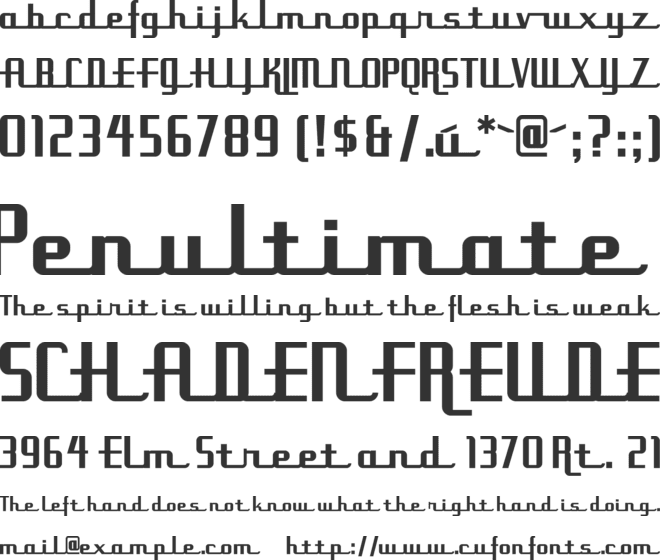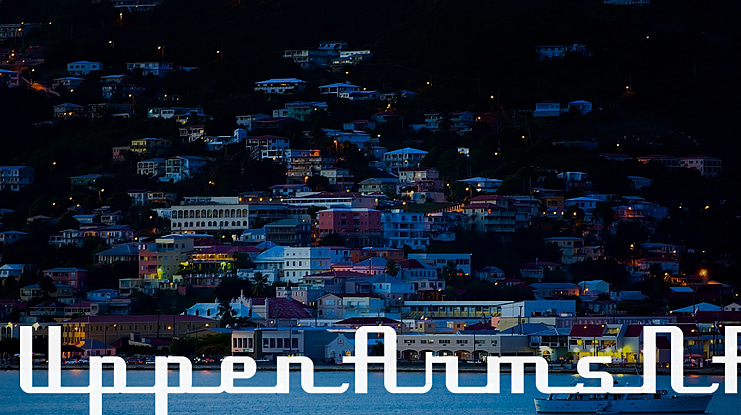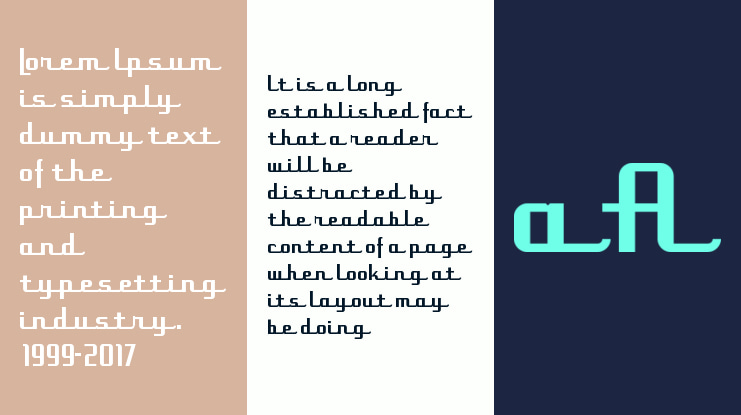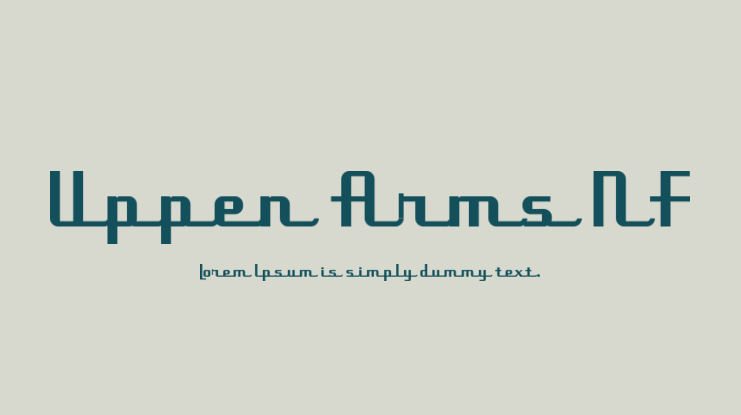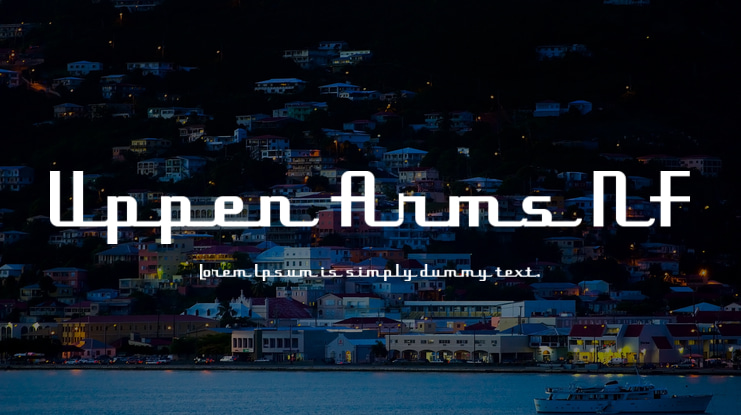
This strung-out semiscript is based on the circa-thirties marquee from New York’s Roosevelt Hotel. The name was chosen rather arbitrarily, but indicates that the residents may be revolting, in perhaps more way than one.